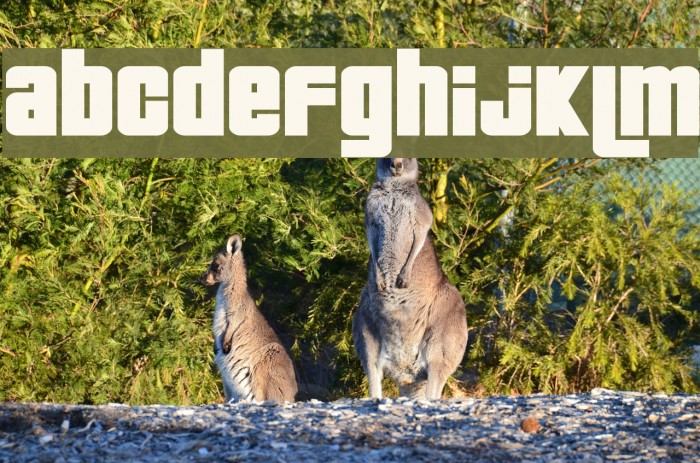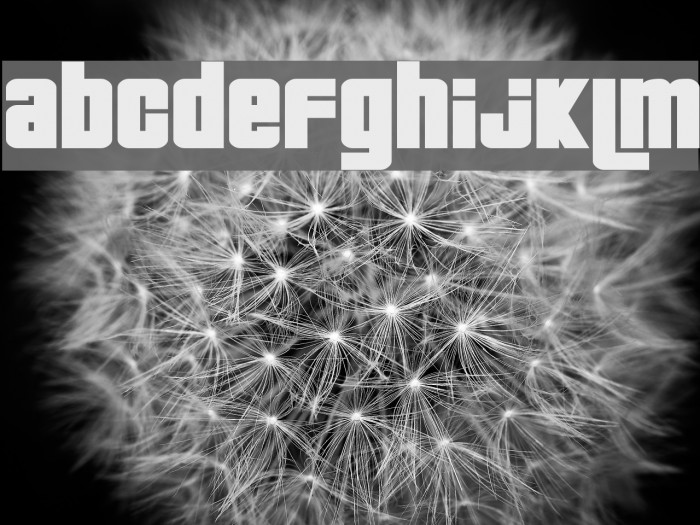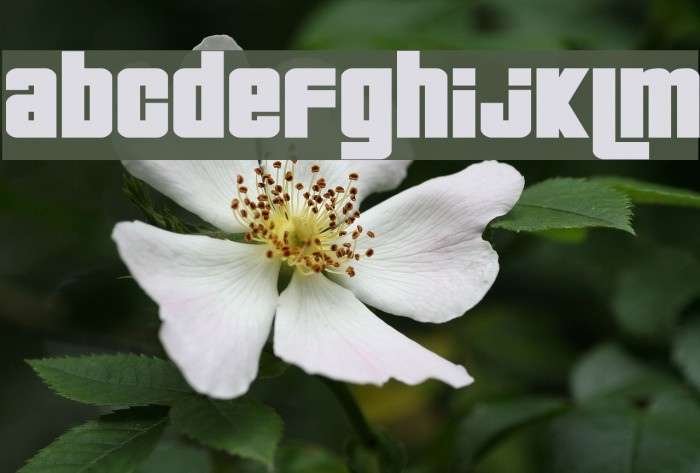
Pricedown Font
Pricedown Description
This bold and impactful font features a strong geometric design with thick, blocky letters that convey a sense of power and authority. The characters are uniformly wide, creating a consistent and cohesive look across all letters and numbers. The uppercase and lowercase letters maintain a similar style, with slight variations in height and width to distinguish them. The numbers are equally bold, ensuring they stand out in any context. Special characters are designed to match the overall aesthetic, with sharp angles and clean lines. This font is ideal for making a statement, whether in headlines, logos, or other prominent text displays.
| Proposed Projects | Ideal for use in branding, advertising, posters, and any project requiring a strong visual impact. |